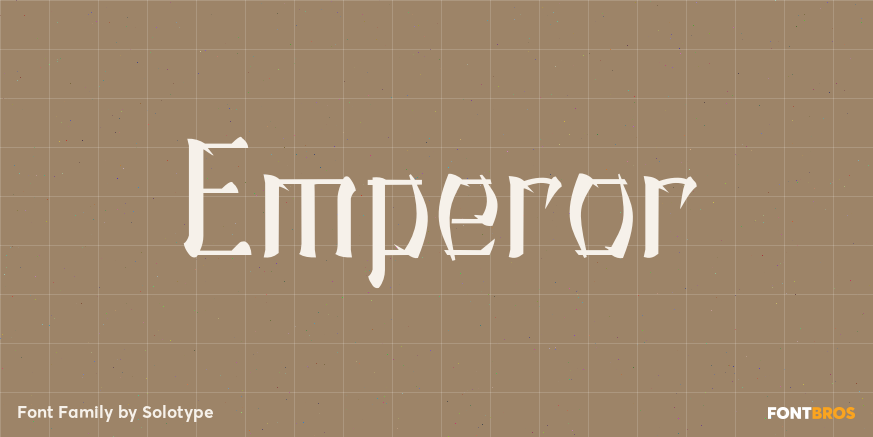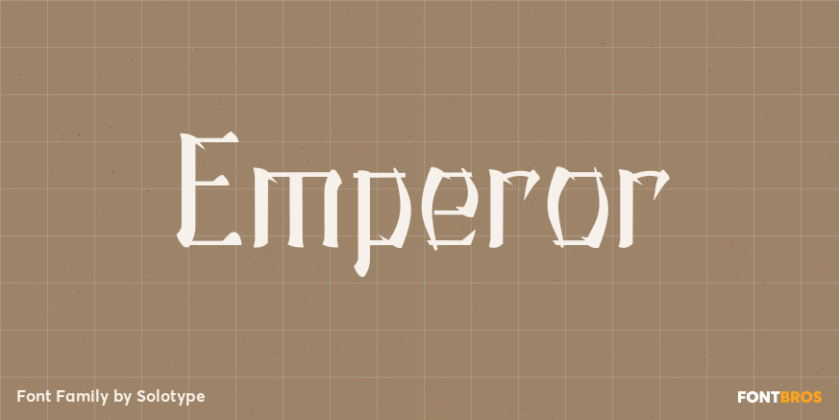
HomeFont BrosSpecial EffectEmperor Special Effect Emperor FacebookXPinterestWhatsApp 1 of 1 About Emperor Another design inspired by Chinese characters, but with a somewhat less obvious treatment than many.  DOWNLOAD ON FONT BROSThis font is sold and delivered by Font Bros. Font Canyon may earn a commission if you buy through this link. People also explored Bernice Ambler Font Trouble Font Daily Font VHS Glitch 2 Outlined Font Okaba Font The Blirixs Font First Games Font Anehena Font Sathor Ammertta Font 223 0 TagsEmperorEmperor Font Previous articleDiploma MonogramsNext articleWally LEAVE A REPLY Cancel reply Comment: Please enter your comment! Name:* Please enter your name here Email:* You have entered an incorrect email address! Please enter your email address here Website: Save my name, email, and website in this browser for the next time I comment. Personal Use Free Rookie Mastering Personal Use Free Read more about this font Alnair Star Personal Use Free Read more about this font Green Farmhouse Personal Use Free Read more about this font Cuttering Personal Use Free Read more about this font BLOG To increase your work productivity, choose the most readable fonts. In today's fast-paced work environment, where digital communication and information consumption are integral to our daily routines, the choice of fonts can significantly impact... Elegant Wedding Invitation Fonts – Handwritten & Script Fonts Where to Buy American Fonts Online in 2024 Fonts That Capture the Spirit of New York City